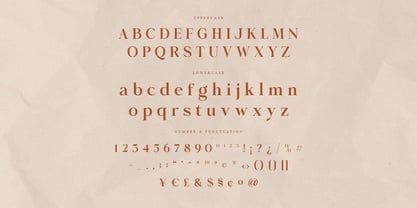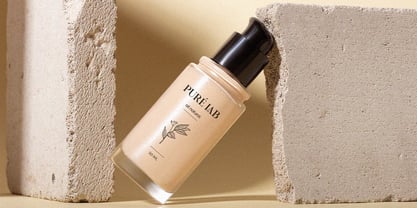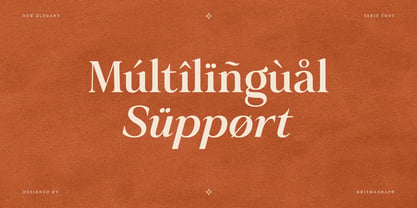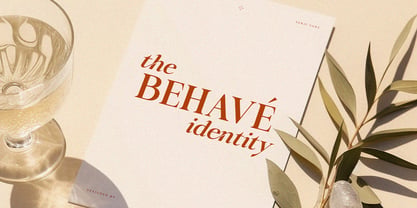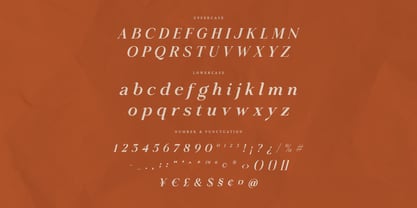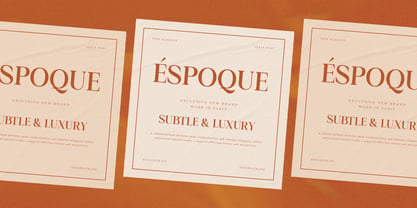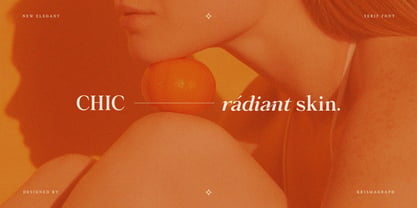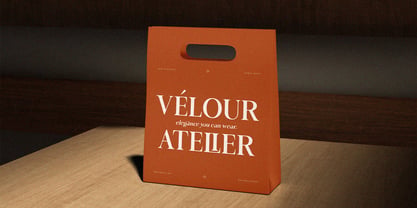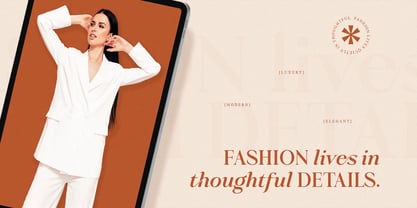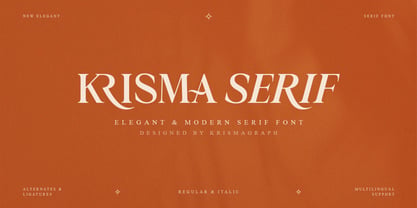
Krisma Serif
Krisma Serif is a sophisticated high-contrast display serif font built for brands that demand attention. With dramatic thick-to-thin stroke transitions, refined swash terminals, and expertly crafted ligatures, this typeface strikes the perfect balance between classical elegance and contemporary sharpness.
Whether you're designing luxury brand identities, editorial layouts, premium packaging, wedding invitations, or high-end poster campaigns, Krisma Serif delivers a commanding typographic presence that is impossible to ignore. The regular and italic cuts provide expressive versatility, while alternates and multilingual support make it adaptable to a wide range of professional projects.
This is a font that speaks the language of sophistication — made for designers who refuse to settle for ordinary.
Designer: Ratna Krismawati
Foundry: Krismagraph
Krismagraph is an independent typeface design studio based in Temanggung, Indonesia, founded in 2018 by type designer Ratna Krismawati. The studio creates contemporary and carefully crafted typefaces for commercial projects.Krismagraph is currently developing retail type families with their unique voice especially designing font with various style Modern and Classic Typeface. Producing high-quality typefaces with a strong character that boosts the distinctive communication purposes of a brand or project.